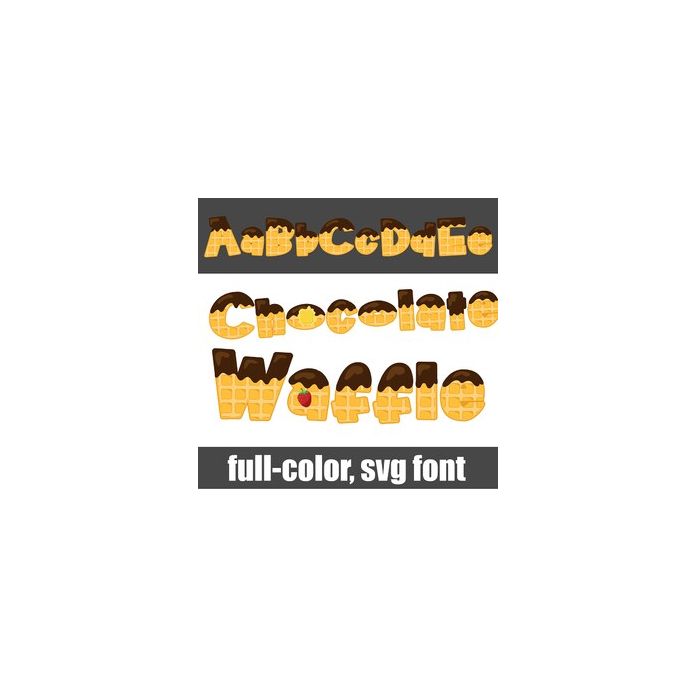
This full-color font features delicious waffle letters with chocolate syrup. Type the greater than and less than glyphs to access a little strawberry and butter pad.